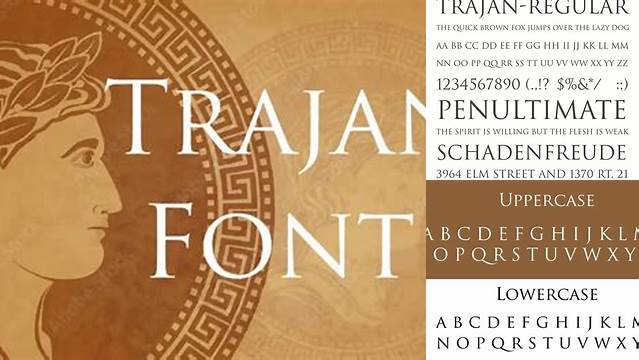
Hey everyone! Are you looking to add a touch of classic elegance to your designs? Well, you're in luck! Today, we're diving deep into the world of Trajan fonts, a timeless typeface that's been around for ages and still rocks today. This guide is your one-stop shop for everything Trajan, from where to snag a free Trajan font to tips on using it like a pro. So, buckle up, and let's get started on this awesome journey!
H2: Understanding the Allure of Trajan Font
Alright, guys, before we jump into downloading, let's chat about why Trajan fonts are so darn special. Think of it: It's inspired by the inscriptions on Trajan's Column in Rome, dating back to the early 2nd century AD. This font exudes a sense of history, authority, and sophistication that's hard to match. The clean lines, the serifs, everything about it screams classic. And honestly, it's a total classic, because it's widely used in everything from movie titles to branding. It's the kind of font that instantly elevates the look of anything it's on. If you are looking for a Trajan font, you're not just picking a typeface; you're choosing a piece of art with history baked into every letter. Its unique design makes it incredibly versatile. You can use it for formal invitations, creating logos, or even just making your website look a bit more professional. The beauty of Trajan is its ability to adapt to different styles. Whether you're working on something vintage or something modern, this font can make it work. And honestly, its clean design makes it easy to read. You can use this Trajan font for almost any project and create an eye-catching and engaging experience. It's a choice that tells people you care about design. That's the magic of Trajan for you.
So, what makes Trajan fonts different from other options? Well, it all comes down to the details. The serifs, the slight variations in line weight, and the overall structure of the letters. They come together to create a visual experience that is both easy to read and aesthetically pleasing. Its historical roots give it a certain weight, a sense of timelessness. Whenever you use Trajan, you're connecting your project to a rich past of art and culture. This font is also easy to combine with other fonts. You can combine it with a sans-serif font to give it a more contemporary appearance, or pair it with another serif font for a sense of elegance. The flexibility of Trajan allows you to create unique designs. The font is the choice of designers who value beauty and efficiency. You'll also get a sense of reliability and professionalism. That's why so many brands choose Trajan for their logos and branding materials. It simply works and has been doing so for centuries.
H3: History and Inspiration Behind Trajan Font
Let's take a little trip back in time, shall we? The Trajan font gets its name and inspiration from Trajan's Column, a Roman triumphal column erected in Rome in 113 AD. The column is covered in detailed inscriptions that are considered one of the greatest examples of Roman capital letters. This inscription is the foundation of Trajan. The craftsmen who created the original lettering paid close attention to the details, the proportions, and the perfect spacing. This makes the letters not only beautiful but also easy to read. When designers came up with Trajan, they looked at those inscriptions. They wanted to capture their timeless quality and elegant beauty. The result is a font that blends history and modern design. It's a perfect blend of art and practicality. The original inscriptions on Trajan's Column are an amazing achievement. They're so well-designed that they've inspired designers for centuries. The letters have perfect proportions. They are balanced, and they create a visually harmonious composition. This is where the power of Trajan is hidden.
When you look at the Trajan font, you will see this inspiration everywhere. The serifs are carefully crafted. The curves of the letters flow and create a feeling of harmony. The font is designed for both aesthetics and readability. This is important, especially when it comes to long texts. The design makes sure that the letters are easy to read. It also creates a visual experience that is pleasing and memorable. The legacy of the Trajan font shows the enduring power of design. It proves that timeless designs can have a lasting impact. Its elegance and clear lines have inspired countless designers. This font is often used in movie posters and for important branding materials. If you're choosing a Trajan font, you're embracing a piece of history. You're also getting the experience of years of design. It's a tribute to the Roman letter carvers who crafted those original inscriptions. So, the next time you see a Trajan font, remember its roots.